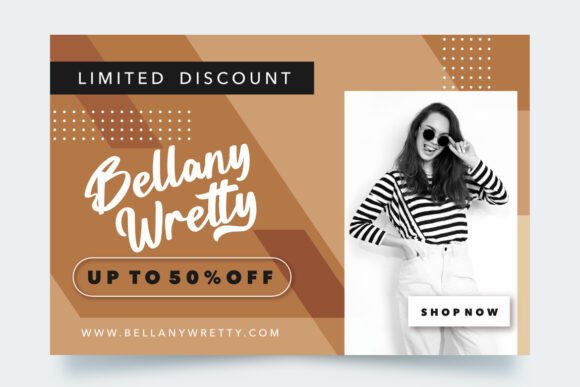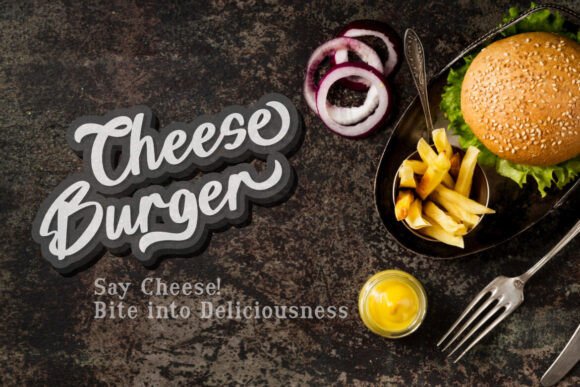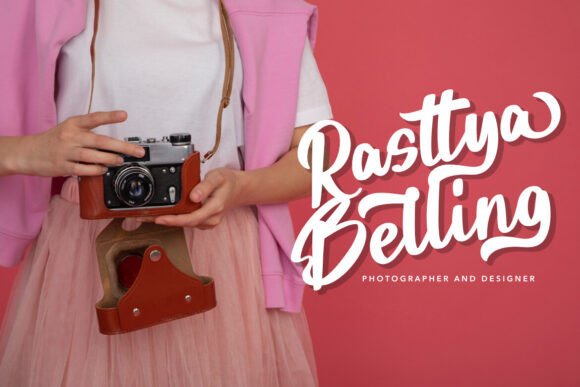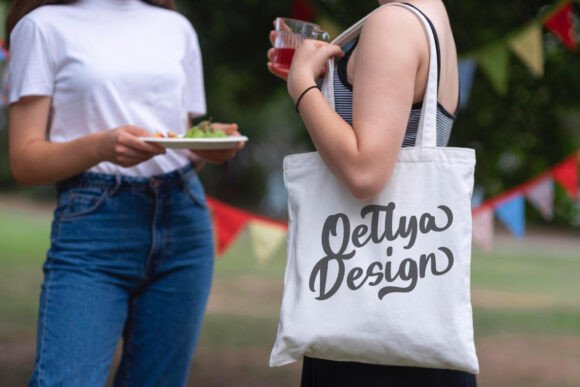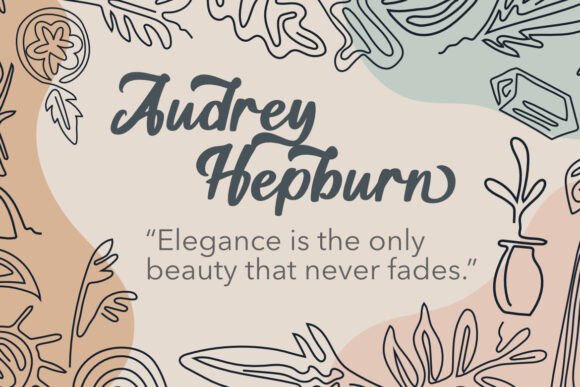
A New Era of Typography: Discover the Allure of Arsiliya Font
Have you ever found yourself mesmerized by the elegant curves of a handwritten note or the charm of a vintage sign? For designers and creatives, those fleeting moments of inspiration can be a spark that ignites a new project or idea. The pursuit of capturing that perfect aesthetic is what drives us to push the boundaries of typography and design.
Enter Arsiliya Font, a stylish script font crafted with precision and passion. This premium quality font is designed to elevate your designs and leave a lasting impression. Whether you’re creating flyers, quotes, posters, or packaging, Arsiliya Font is the perfect companion for any project. Its versatility and sophistication make it a valuable asset for designers looking to add a touch of elegance to their work.
Arsiliya Font Key Features
- Font Family: A beautiful, elegant script font with unique characteristics, perfect for various design applications.
- Font Size: The font family includes a range of sizes, from 8pt to 200pt, allowing for flexibility in design applications.
- Resolution: Designed for high-resolution displays, ideal for use in digital media, such as websites, mobile apps, and e-books.
- Unique Characteristics: Features intricate details, swashes, and ligatures, adding a touch of sophistication to any design.
- Language Support: Supports a wide range of languages, including Latin, Cyrillic, and Greek alphabets, making it a versatile font for global applications.
Arsiliya Font Review
Overall, I think the Arsiliya Font is a beautiful and elegant script font. ✨ It’s perfect for adding a touch of sophistication to your designs, whether it’s for a wedding invitation, a logo, or a magazine cover. The font’s flowing lines and delicate curves create a sense of luxury and refinement.
- ✨ Elegant and refined aesthetic
- ✨ Perfect for creating a sense of luxury and sophistication
- ✨ Beautiful for use in invitations, logos, and other high-end designs
- ✨ Wide range of languages supported
However, there are a few limitations:
- ⚠️ Limited character set (only supports 128 characters)
- ⚠️ May not be suitable for use in text-heavy designs
- ⚠️ Can be difficult to read at small font sizes
Overall, I think the Arsiliya Font is a great choice for designers looking to add a touch of elegance to their designs. While it has some limitations, its beauty and sophistication make it a worthwhile investment. With a little creativity and planning, you can use this font to create truly stunning designs.
Use the Arsiliya font for creative projects that require a unique, elegant touch.
Combine the Arsiliya font with other creative elements, such as graphics and illustrations, to add depth and personality to your design.
Brand identity and logo design
Editorial and magazine design
Web design and development
Alternatives to Arsiliya Font
Playfair Display is an elegant, luxurious font ideal for creating high-end designs, luxury brands, and special events. It’s a serif font with intricate details, making it perfect for headlines and titles.
Comparison to Arsiliya Font: While Arsiliya Font has a unique, exotic feel, Playfair Display exudes luxury and sophistication. Playfair Display is more ornate and intricate, making it better suited for formal designs, whereas Arsiliya Font is versatile and can be used in various contexts.
Great Vibes is a modern, elegant script font that’s perfect for creating a sense of luxury and sophistication. It’s ideal for logos, branding, and advertising materials.
Comparison to Arsiliya Font: Great Vibes has a more refined and polished feel compared to Arsiliya Font. While Arsiliya Font has a unique, exotic flair, Great Vibes is more understated and sophisticated, making it better suited for high-end designs and branding.